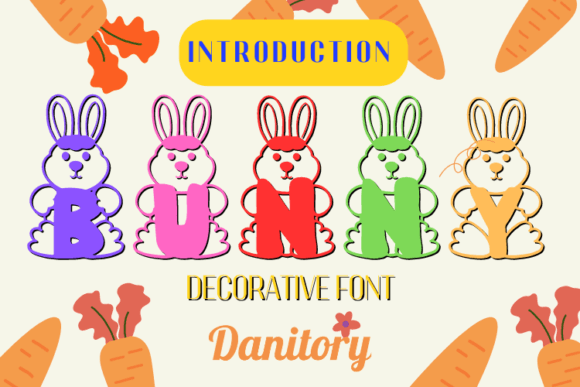
The Cutest Font for Your Next Design Project: Bunny Font
Have you ever been working on a design project and suddenly had a burst of creativity that just wouldn’t let you go? Maybe it was a quirky idea for a children’s book, or a whimsical Easter-themed project that just needed that extra something. For me, it was a font with a bunny twist – and I’m not talking about just any font, but the adorable Bunny Font that instantly brings a smile to your face.
With its playful and whimsical design, the Bunny Font is perfect for adding a touch of cuteness to your designs. Whether you’re a seasoned designer or just starting out, this font is an absolute must-have for creating adorable and eye-catching projects that will capture the hearts of your audience.
Bunny Font Key Features
- Unique Characteristics: Bunny Font features a distinctive, hand-drawn design with playful and whimsical elements, making it ideal for children’s books, educational materials, and creative projects.
- Font Style: Bunny Font comes in three different styles: Regular, Bold, and Italic, providing versatility for various design applications.
Bunny Font Review
Overall, I was pleasantly surprised by the Bunny Font. There are a few things that really stand out to me, and I’m excited to share my thoughts.
- The Bunny Font has a playful, whimsical feel that’s perfect for children’s books, cartoons, or any other project that needs a lighthearted touch.
- The font is highly customizable, with a range of options for size, color, and style that make it easy to get the look you want.
- The character set is comprehensive, with a wide range of symbols and glyphs that will give you plenty of options for creative expression.
- The font can be a bit too playful for more formal or professional projects, so it may not be the best choice for things like business reports or technical documentation.
- The font’s large size and bold lines can make it difficult to read in small quantities or at low resolutions.
Overall, I think the Bunny Font is a great choice for designers who need a fun, playful font for their projects. While it may have some limitations, its customization options and comprehensive character set make it a versatile and useful tool.
Use Bunny Font in moderation to avoid overwhelming your design. Pair it with other fonts to create a balanced and visually appealing design. Experiment with different font sizes, colors, and styles to achieve the desired effect.
For optimal readability, we recommend using the Bunny Font at a minimum font size of 12 points and a line height of 1.5x the font size. Additionally, the font supports ligatures and contextual alternates, which can be enabled in your design software to enhance the overall typographic experience.